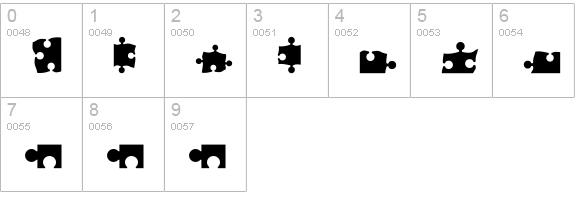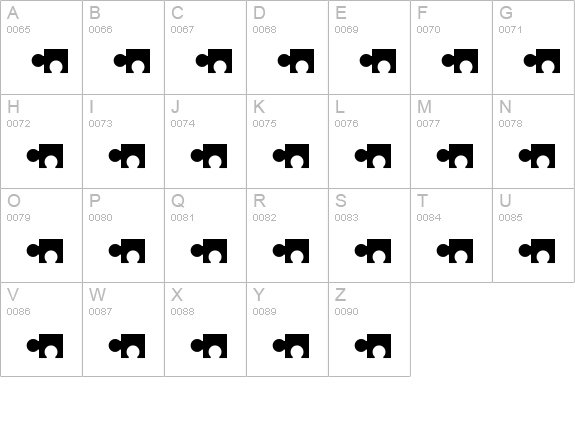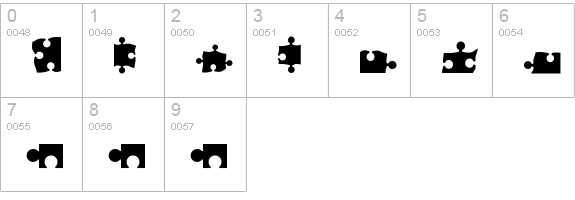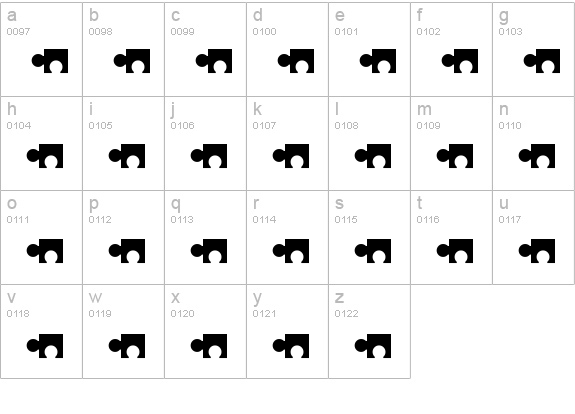
Puzzle Font Details
Introducing Puzzle font, a unique and captivating typeface that will bring a touch of creativity to your design projects. This playful font features intricate geometric shapes and a puzzle-like arrangement, making it perfect for adding a modern and eye-catching element to your work. The Puzzle font is versatile and can be used for a wide range of design purposes, from logos and branding to posters and social media graphics. Its bold and quirky style is sure to make your text stand out and leave a lasting impression on viewers. Best of all, Puzzle font is completely free to download at FontsMarket.com. So why wait? Add this exciting font to your collection today and unleash your creativity with Puzzle font!